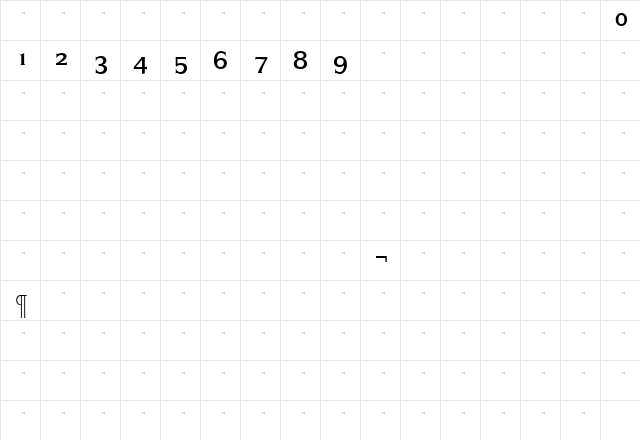
SilveradoMediumOldStyleFigures Roman
Design Context for SilveradoMediumOldStyleFigures
SilveradoMediumOldStyleFigures carries the refined structure of traditional serif typography, with bracketed terminals and considered proportions that communicate credibility and craft.